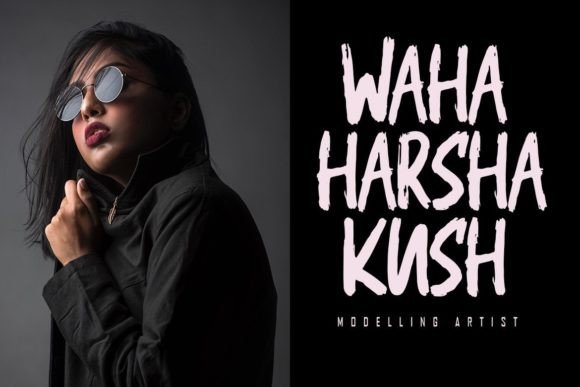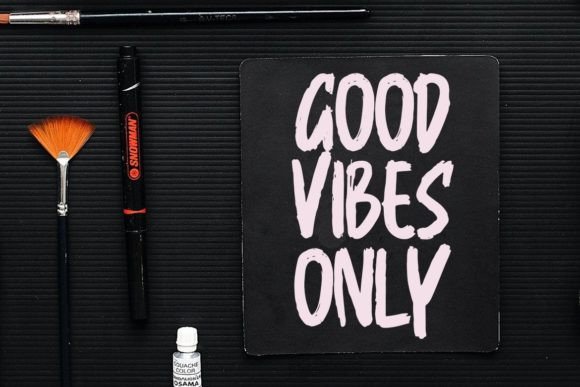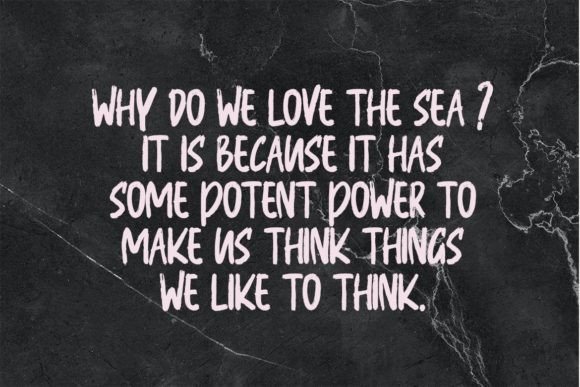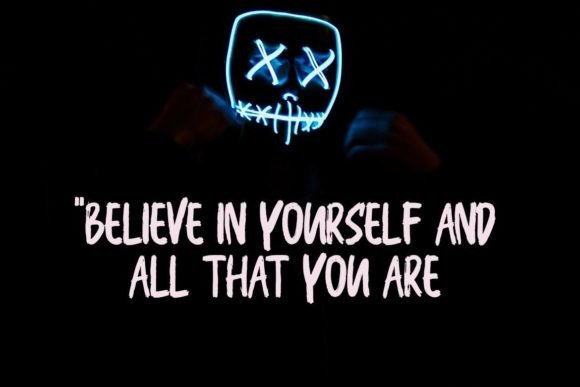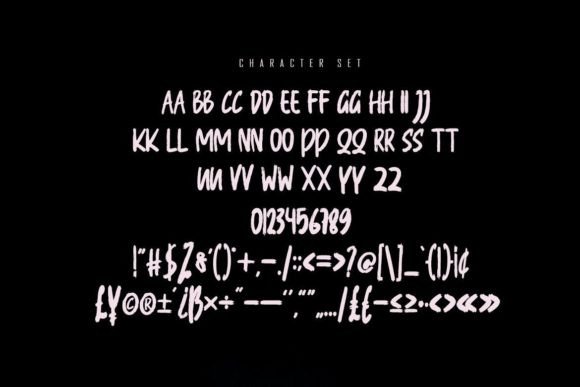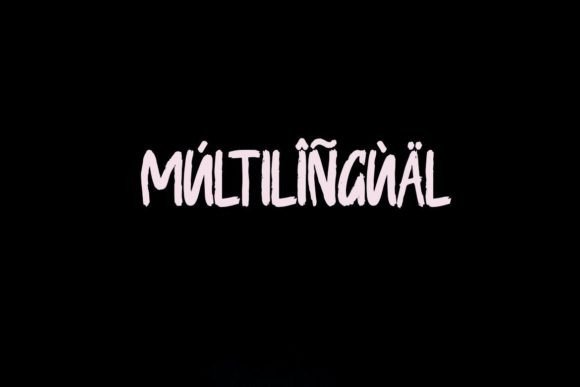
Introduction to Kulisha Font
Kulisha is a textured brush display font with paint scratches.
The original stroke of this font is suitable for film or commercial needs that can support your business or company .
Key Features of Kulisha Font